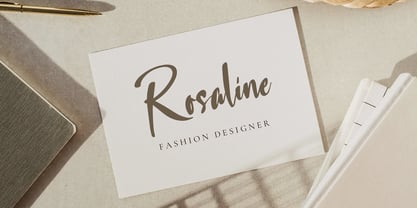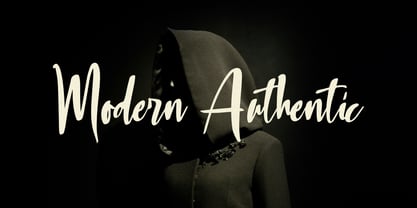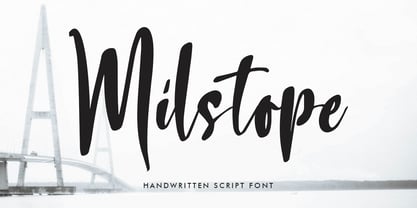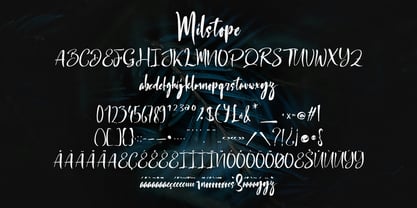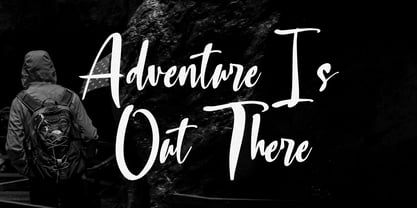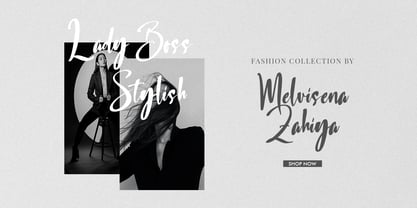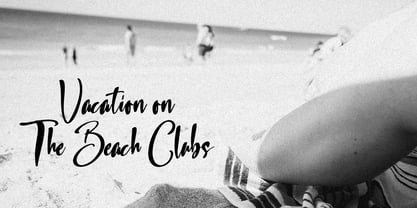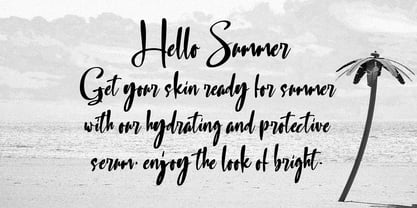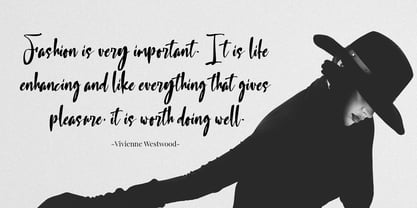
Milstope
by Mega Type
The Milstope Font Family was designed by M Akmal and published by Mega Type. Milstope contains 1 styles. More about this family
Milstope is a modern handwritten script font that elegantly blends casual brush strokes with a refined, artistic flair. Its uppercase characters are clean and stylish with a slightly elongated structure, while the lowercase set features a more fluid, cursive touch that gives it a natural, handwritten charm. The font also includes an extensive set of punctuation, symbols, ligatures, and multilingual characters, making it both expressive and versatile.
Milstope is ideal for creative and emotionally resonant projects such as wedding invitations, branding for lifestyle or beauty products, handcrafted logos, social media graphics, and quote designs. Its personal and artistic character gives a warm, approachable tone that can enhance any design looking for an authentic, human touch.
Designers: M Akmal
Foundry: Mega Type